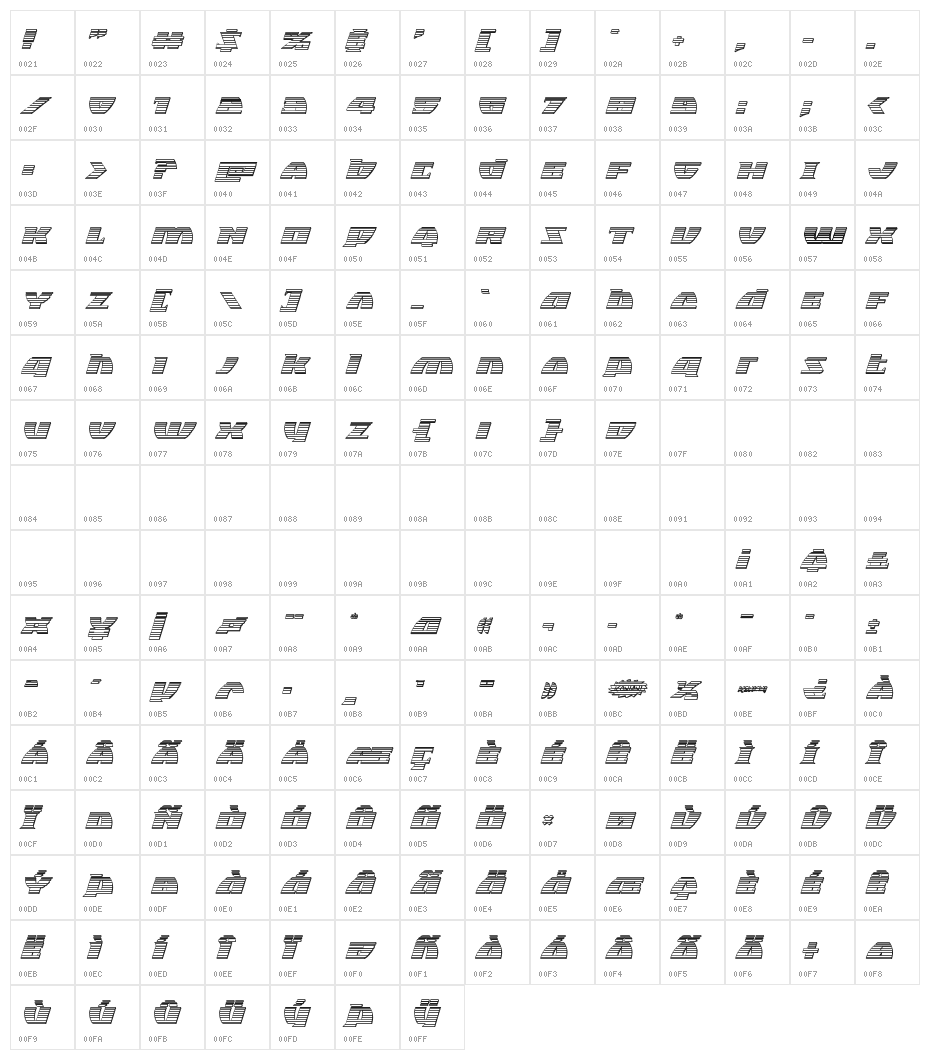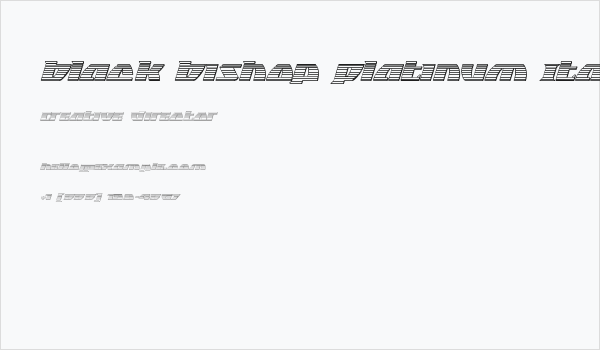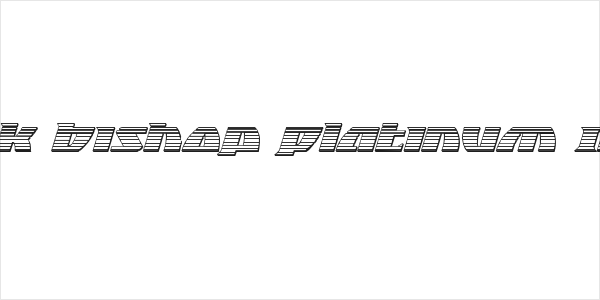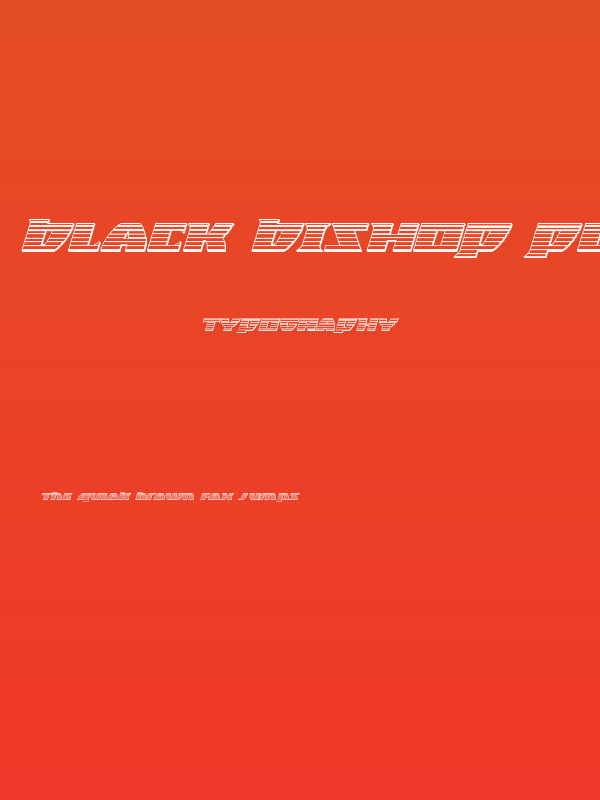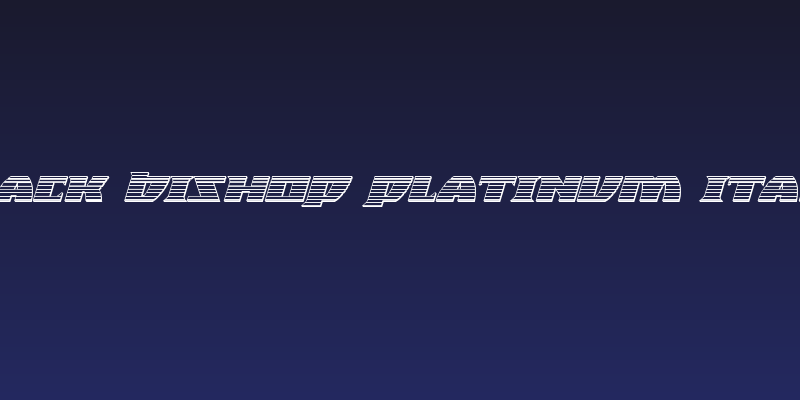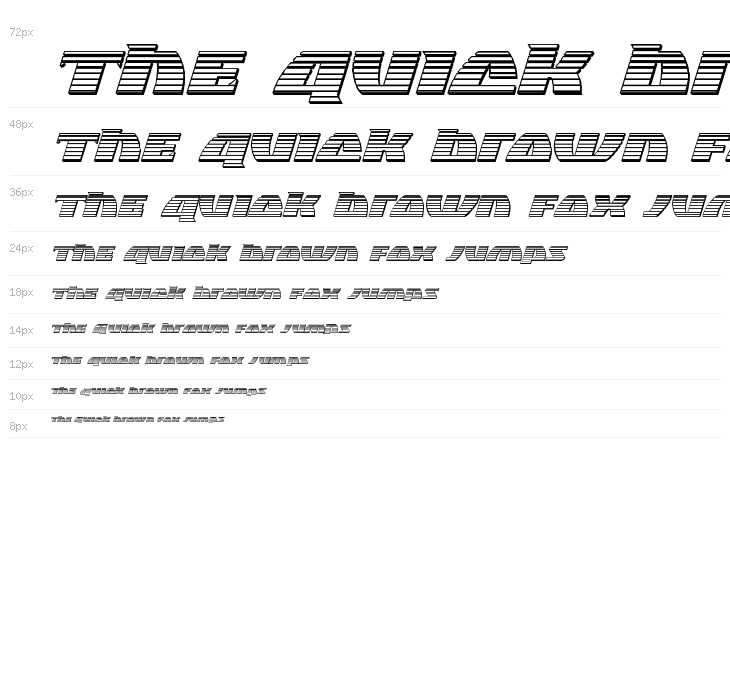
Black Bishop Platinum Italic Font
Black Bishop Platinum Italic Description
This font features a bold, futuristic design with a distinct striped pattern running horizontally across each character. The italicized style adds a dynamic, forward-leaning appearance, enhancing its modern and edgy aesthetic. The uppercase and lowercase letters maintain a consistent width, contributing to a cohesive look. The numbers and special characters are designed with the same striped motif, ensuring uniformity across all elements. This font's unique style makes it stand out, ideal for projects that require a bold statement.